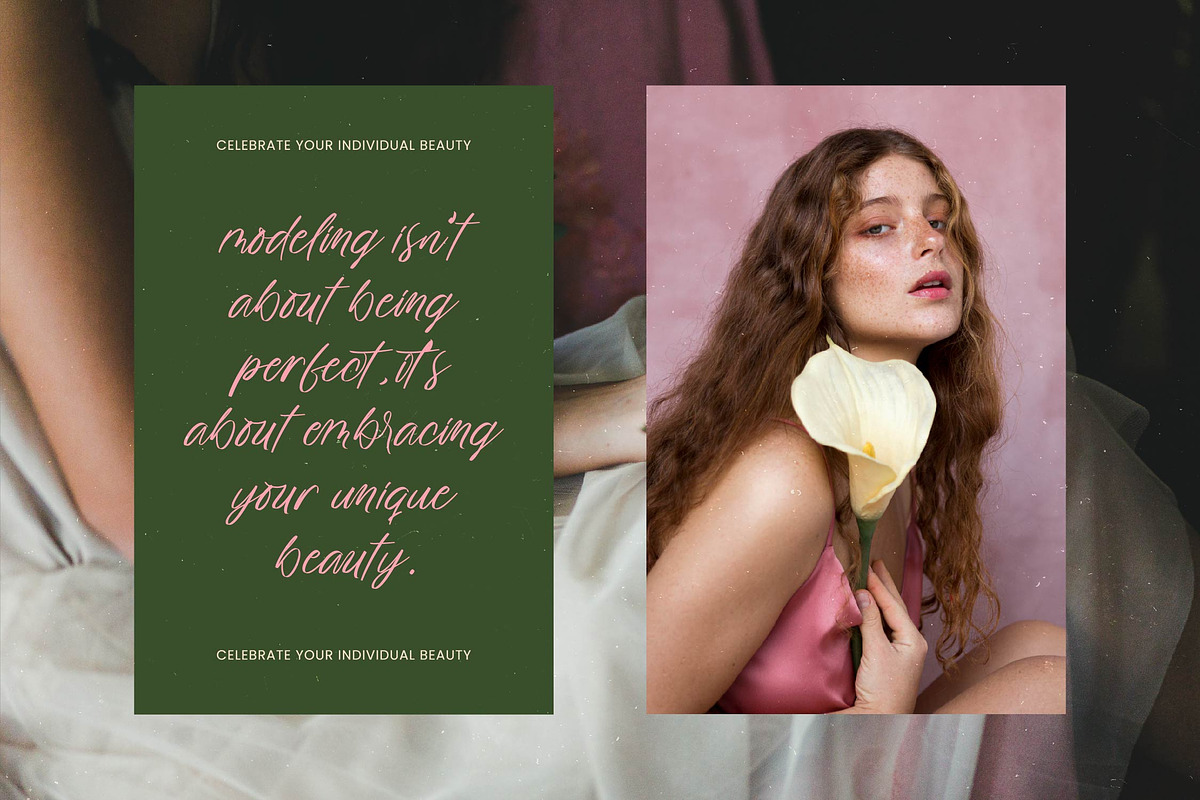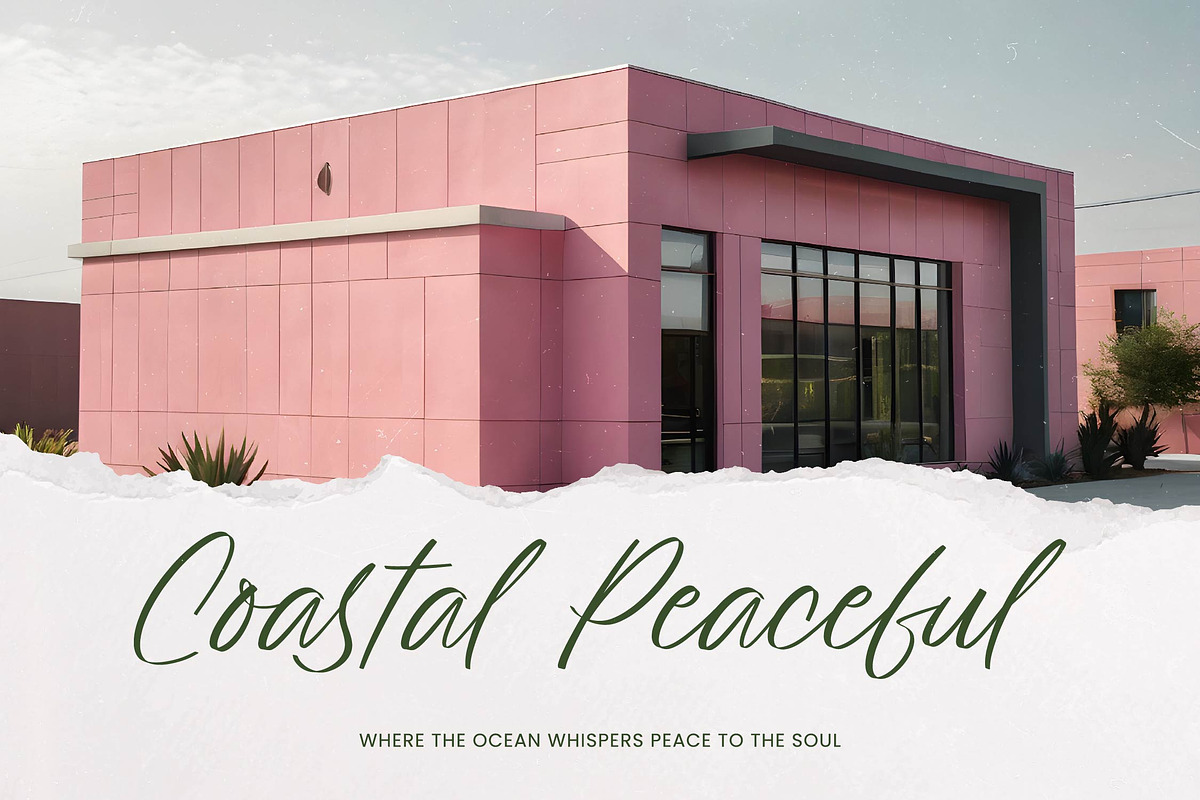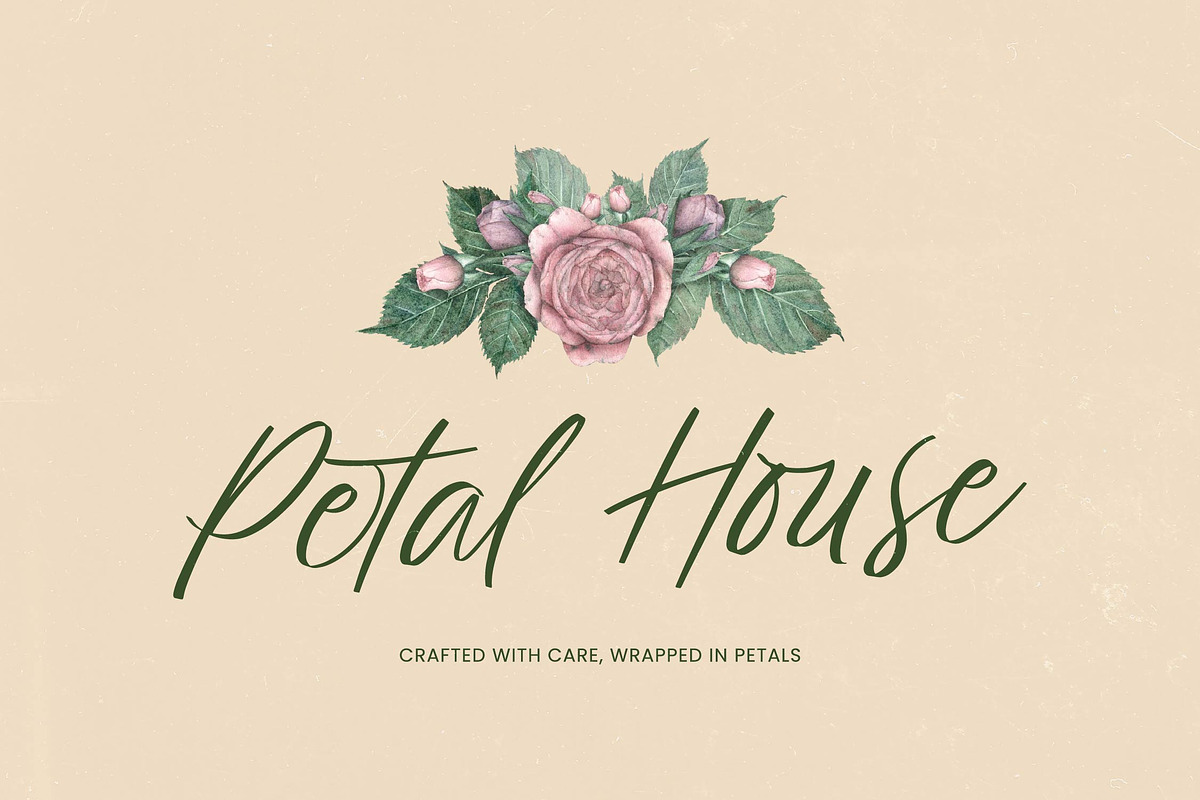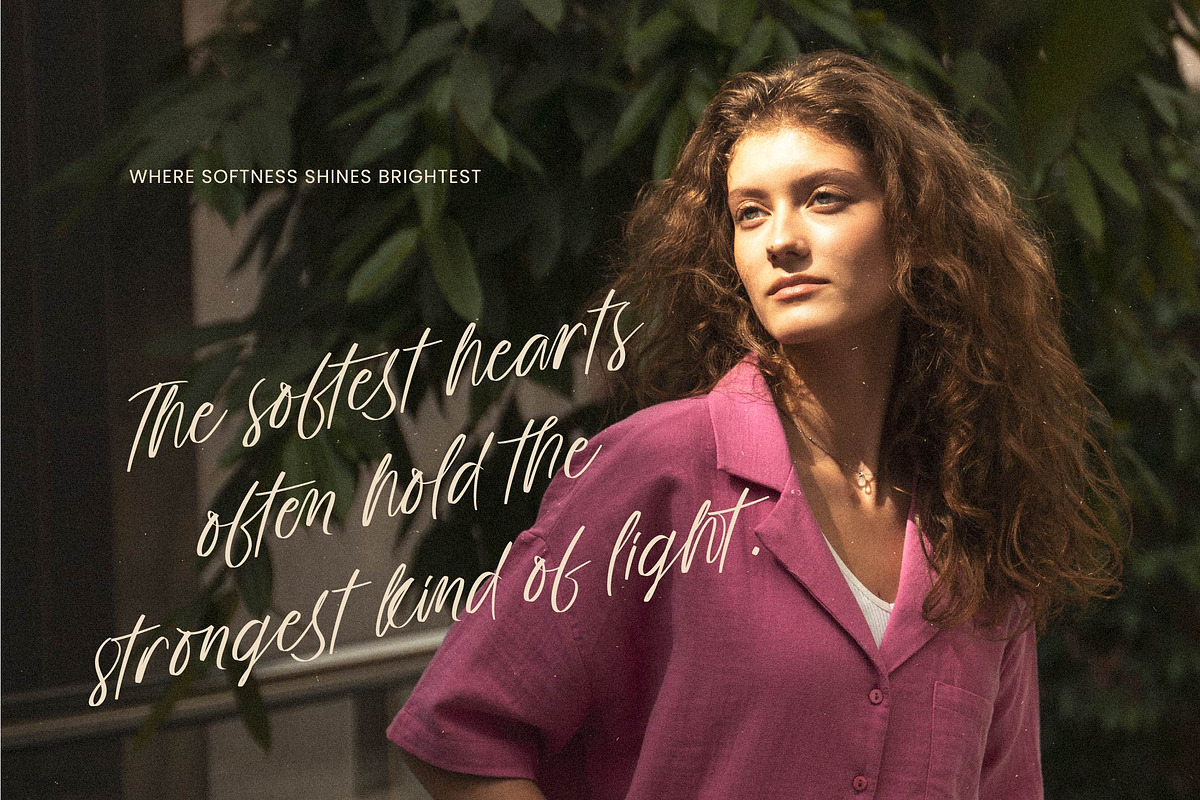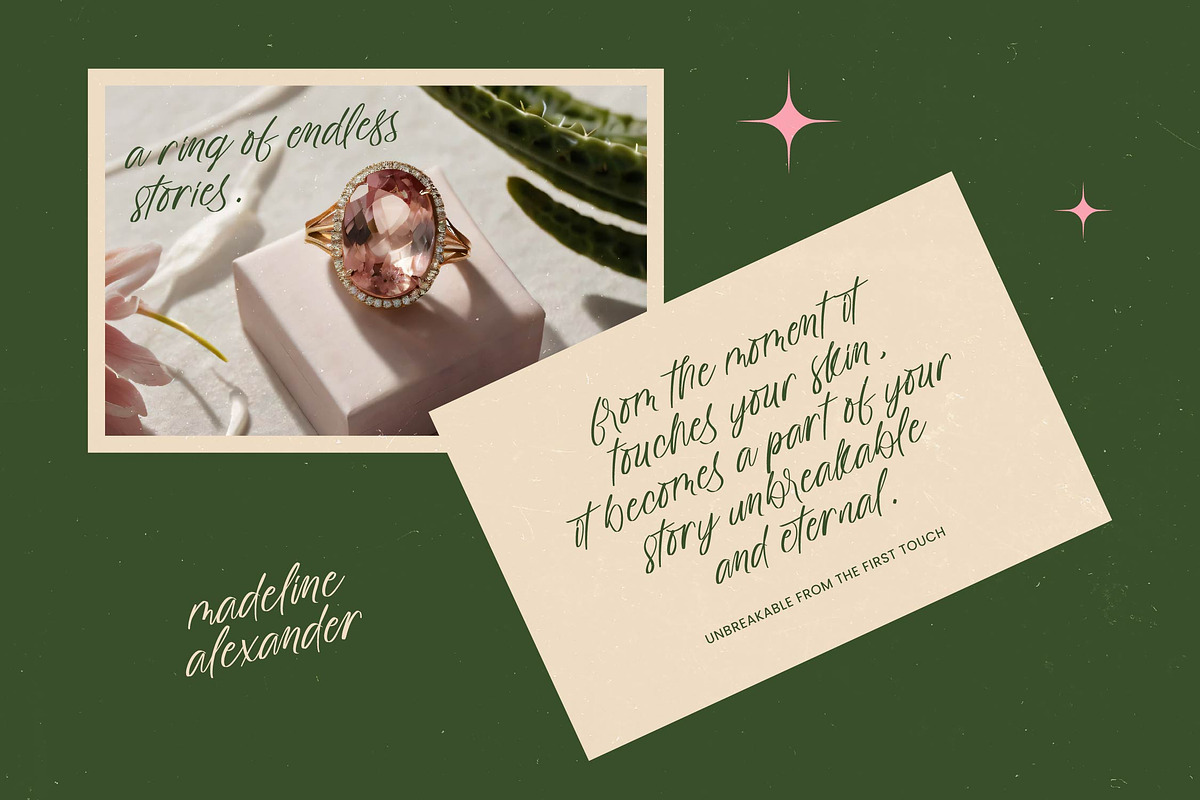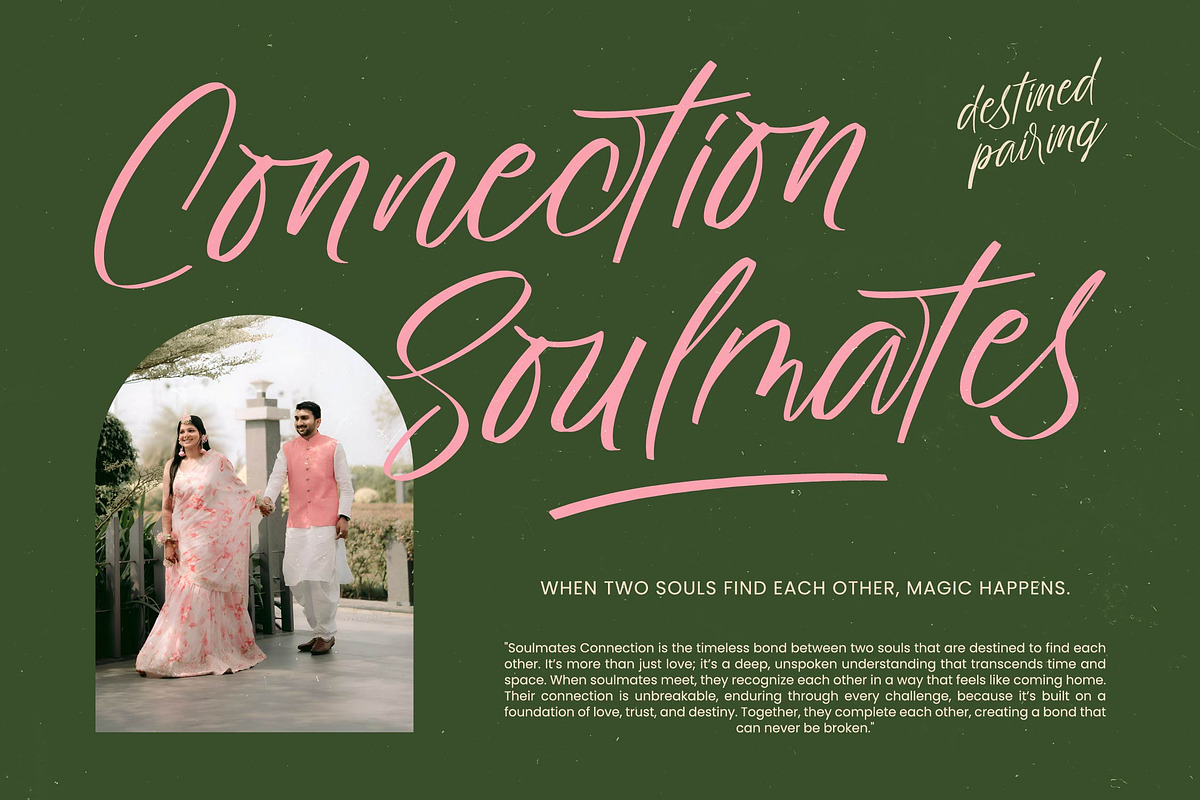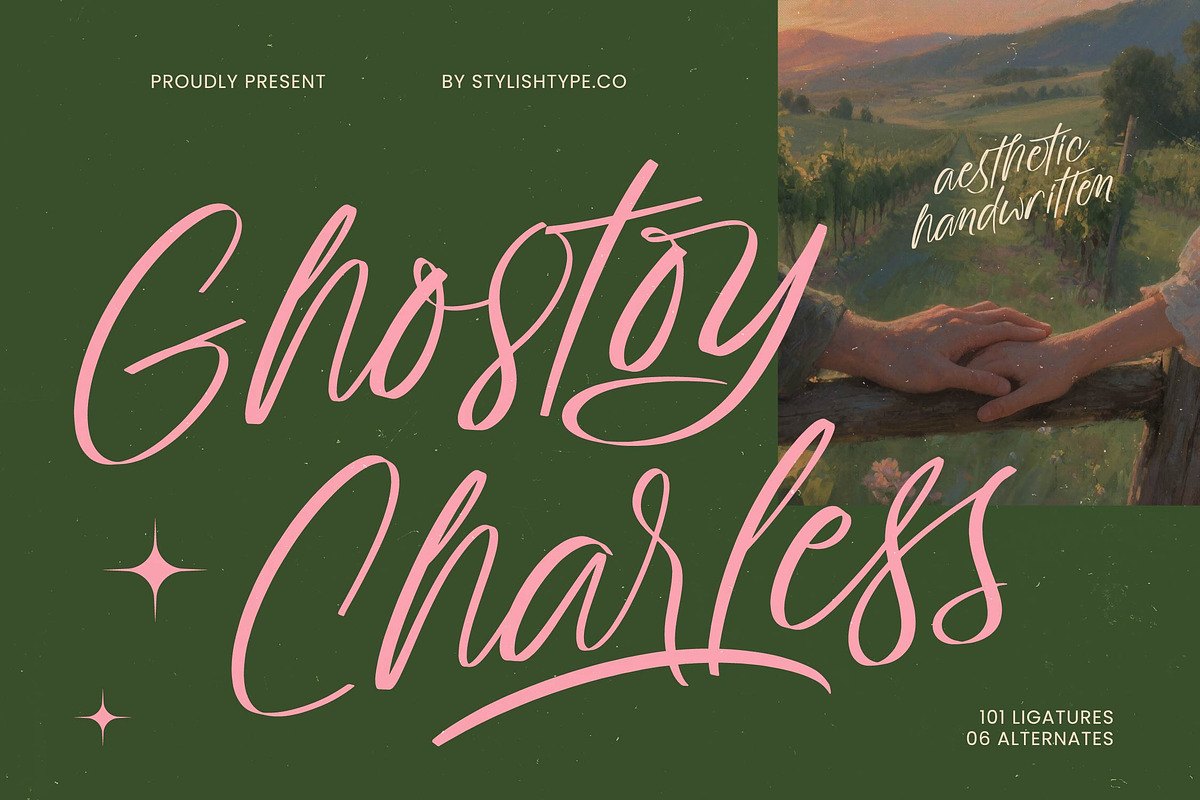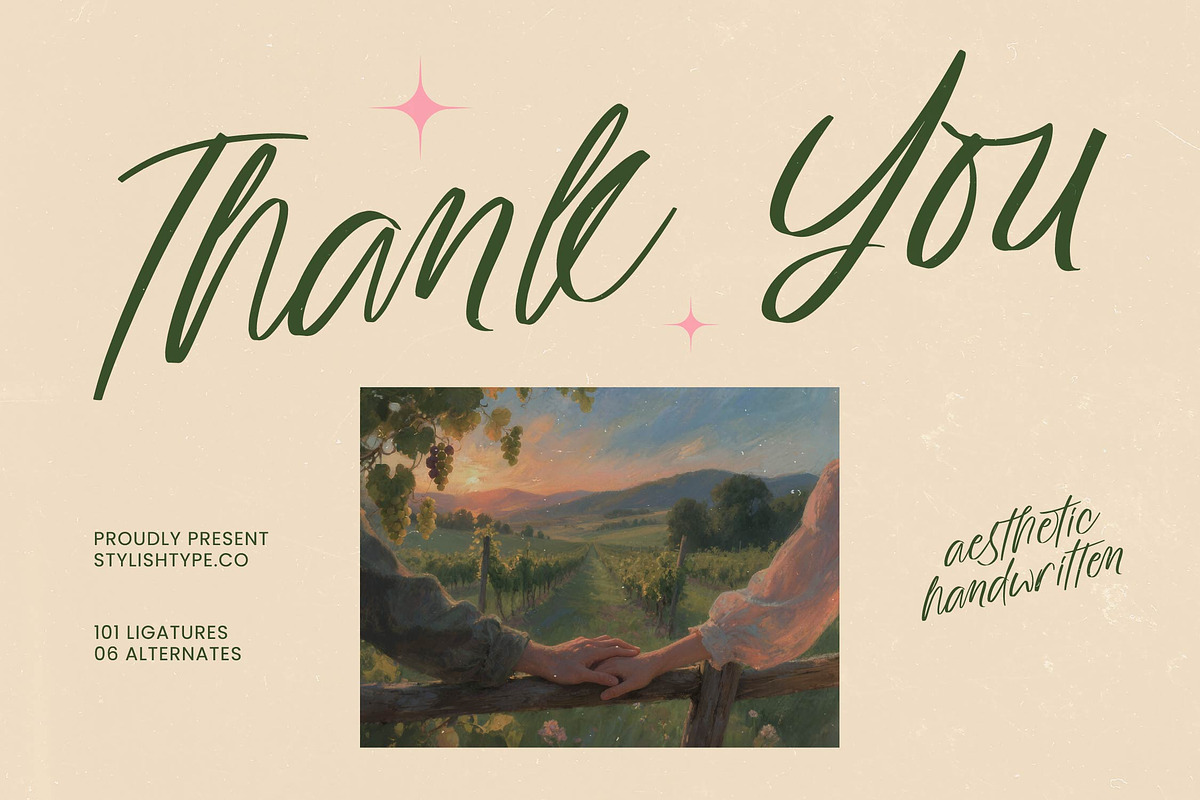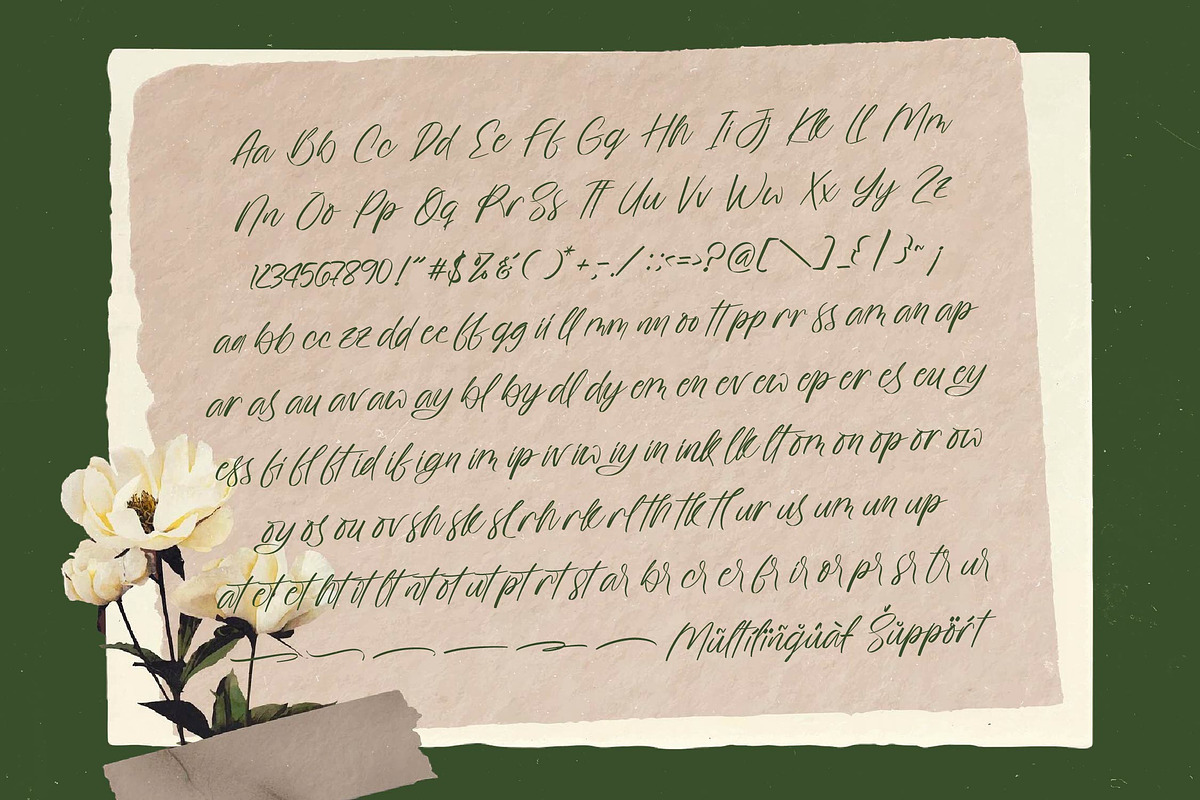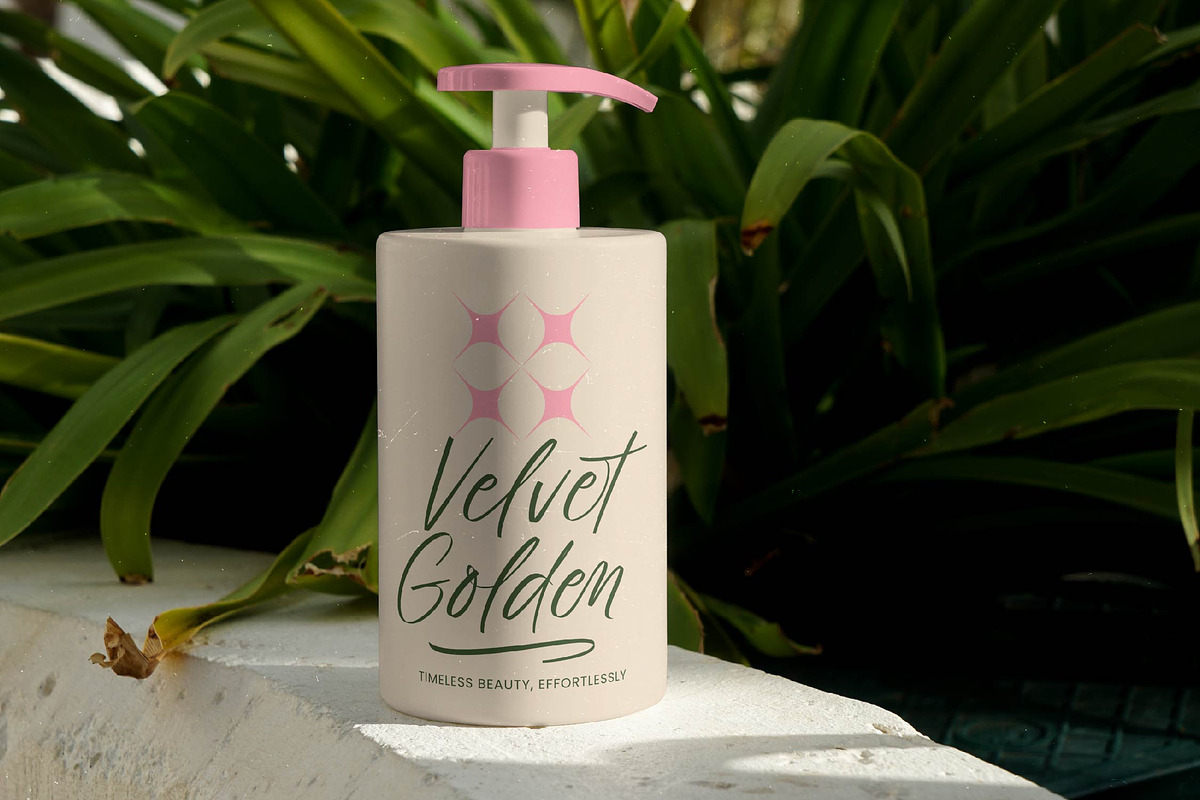
Ghostoy Charless Aesthetic Script
Ghostoy Charless – Aesthetic Handwritten , Elevate your creative vision with a touch of authentic elegance and timeless charm. Ghostoy Charless – Aesthetic Handwritten is a masterfully crafted sophisticated script that captures the essence of personalized artistry. Designed with an organic flow and graceful strokes, this font brings a human touch to digital canvases, making it an essential tool for designers seeking to convey intimacy and visual storytelling.
Unlock unparalleled creative flexibility with an expansive suite of features including 101 custom ligatures and unique alternates. These OpenType features ensure seamless transitions between characters, mimicking the natural rhythm of high-end calligraphy. With its extensive multilingual support, Ghostoy Charless – Aesthetic Handwritten adapts seamlessly across global markets, making it incredibly versatile for international projects and ensuring your brand message remains consistent everywhere.
Transform your brand identity into a premium experience that resonates with high-value clients. Ghostoy Charless – Aesthetic Handwritten is the perfect choice for luxury branding, editorial design, and high-end packaging. Whether you are crafting wedding invitations or curated social media content, its refined aesthetic ensures your project stands out in a crowded marketplace with a distinct sense of modern luxury.
Invest in a typeface that perfectly balances artistic flair with commercial performance. Choosing Ghostoy Charless – Aesthetic Handwritten means opting for professional typography that delivers visual impact and timeless appeal. From logo development to lifestyle marketing, this font provides the aesthetic excellence required to elevate any professional portfolio and achieve a lasting impression on your target audience.